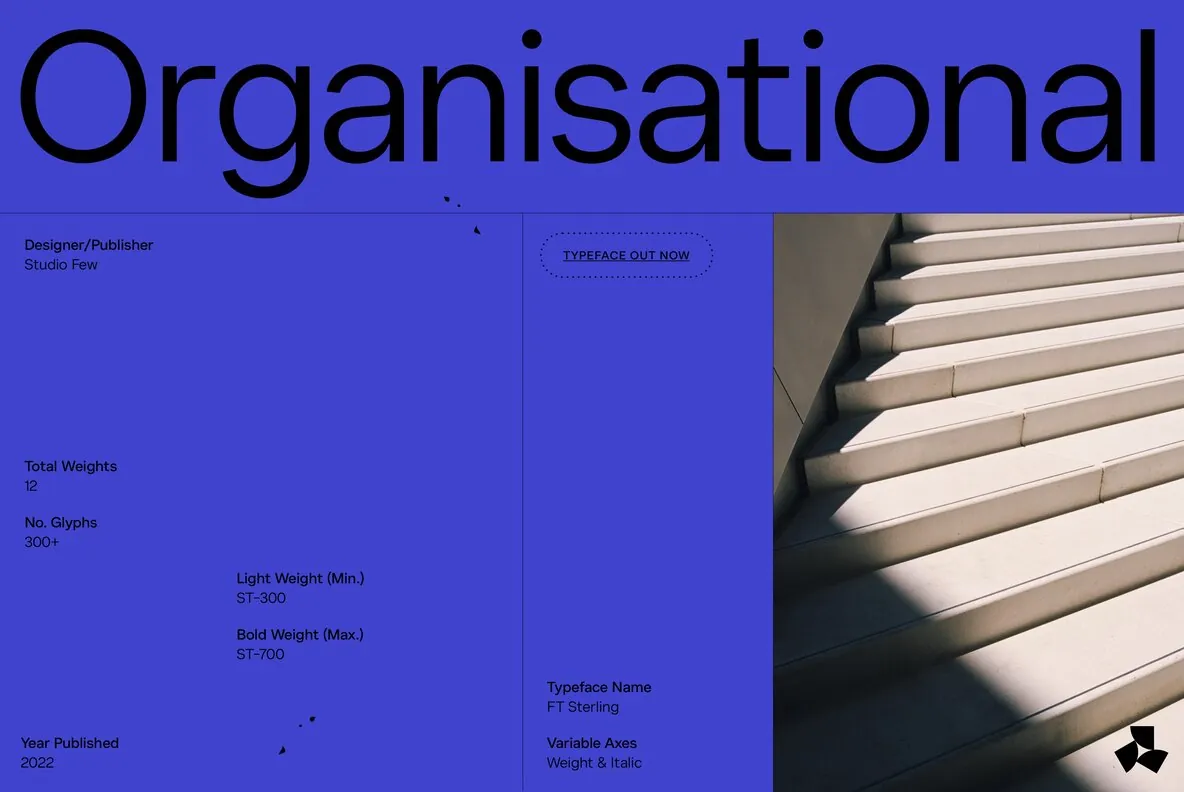
Sterling — UI Clarity With Character
With a tall x-height, angled terminals, and medium contrast, Sterling is a UI font designed with personality. It reads cleanly at small sizes while still showing a distinctive voice in interface typography.
Originally conceived as a hybrid between Grotesque and Humanist, Sterling pairs legibility with character. Use it for product UI, dashboards, navigation, and system text where clarity matters, but you still want a typographic tone that feels considered and confident.